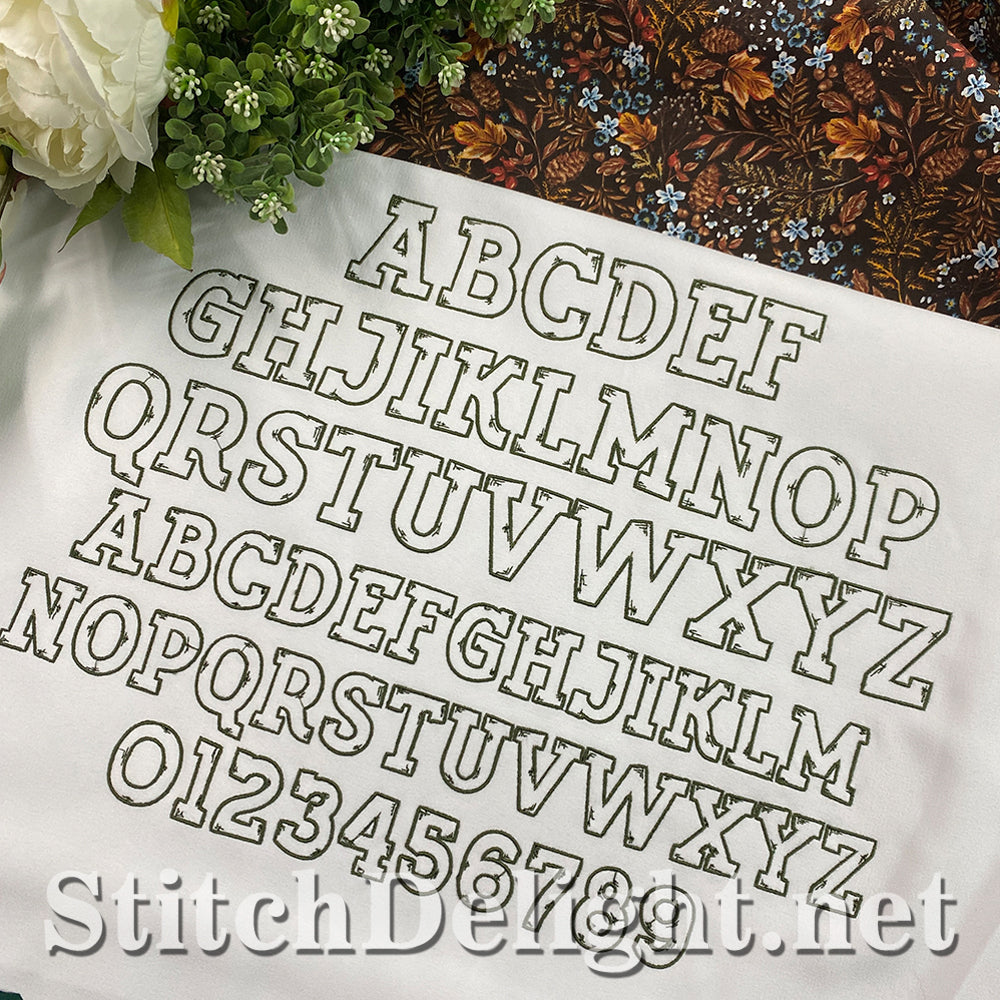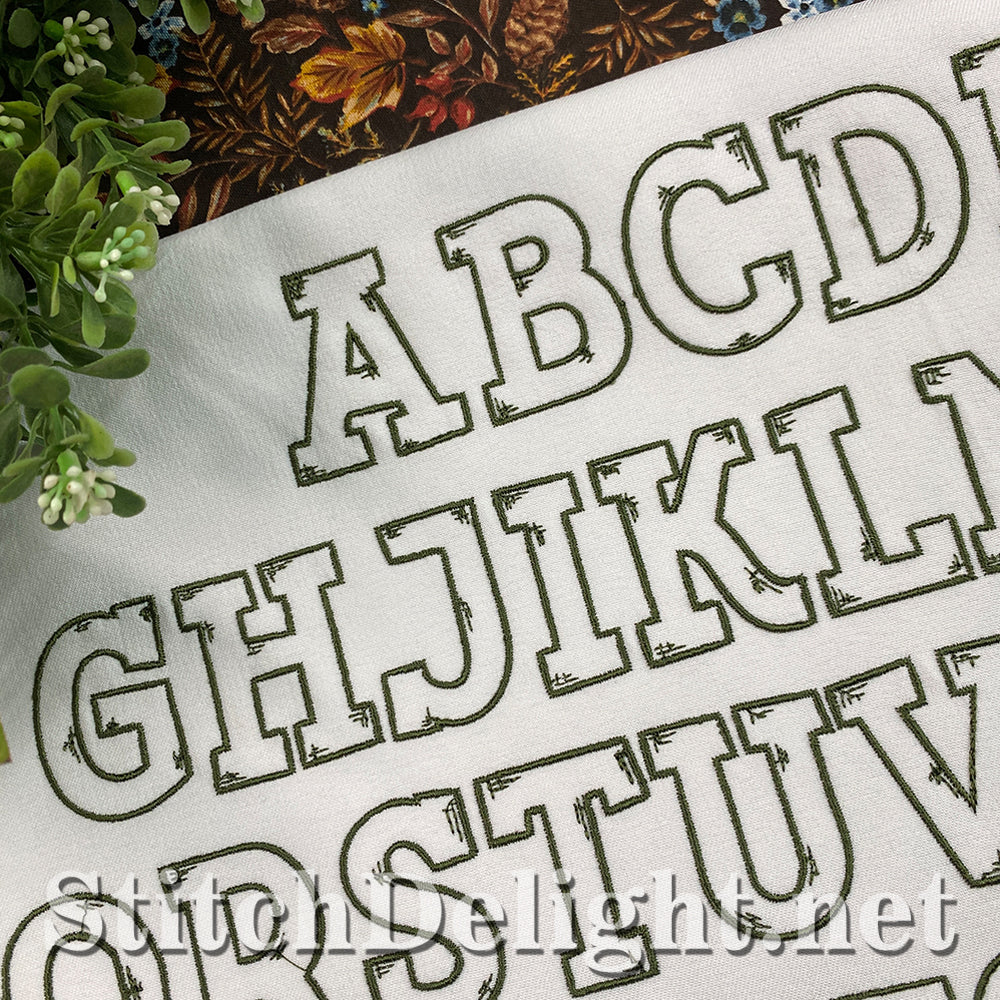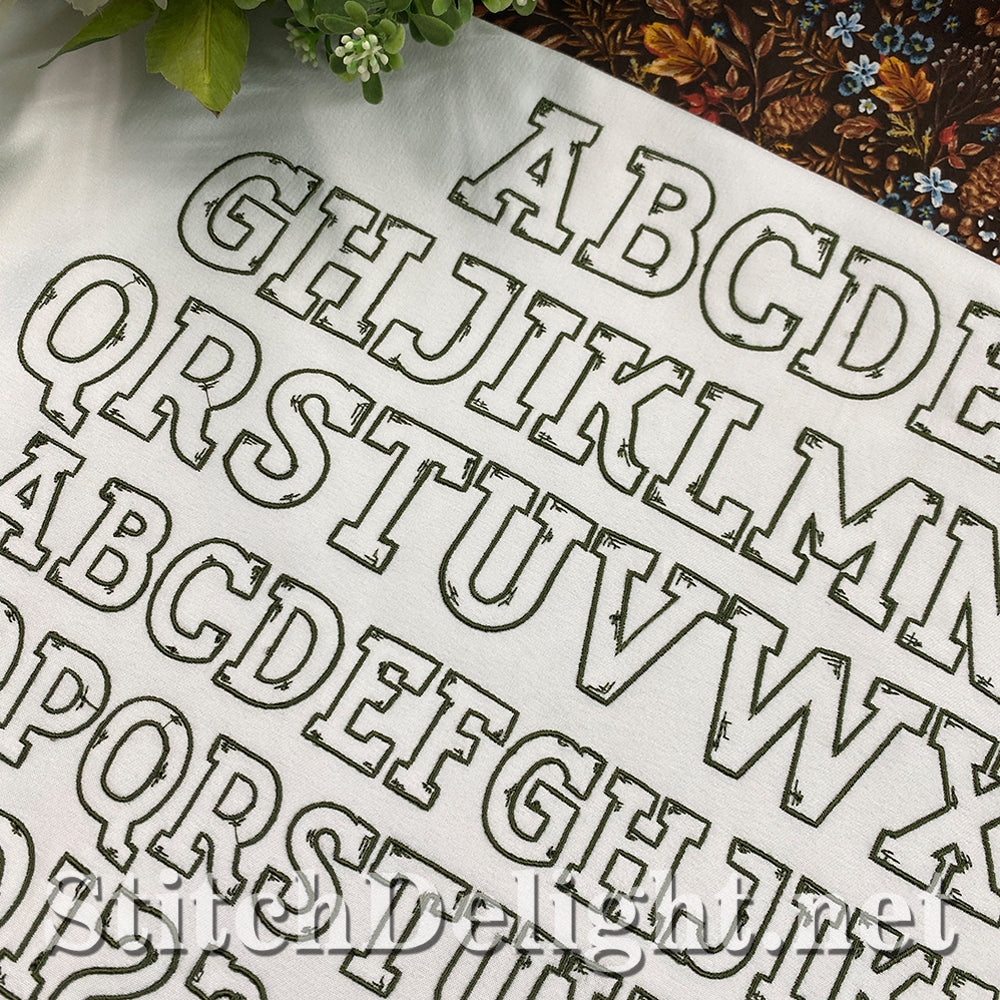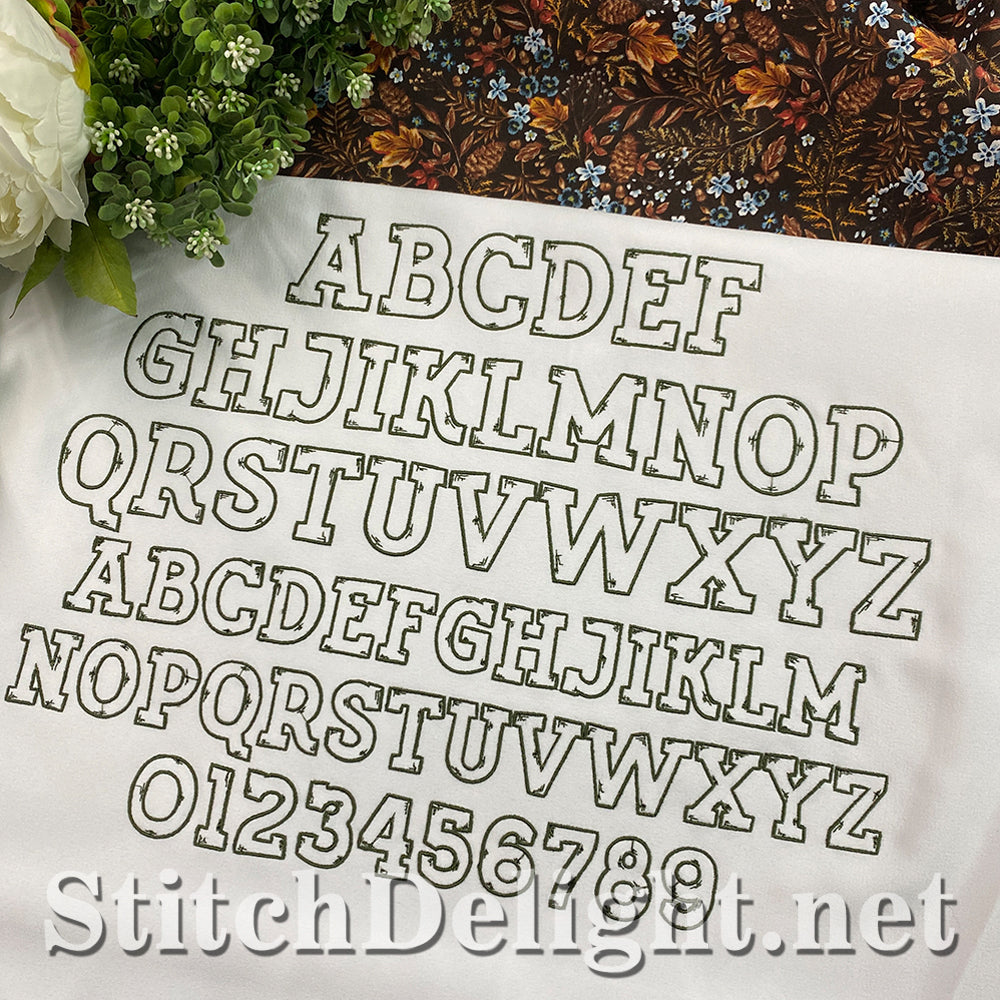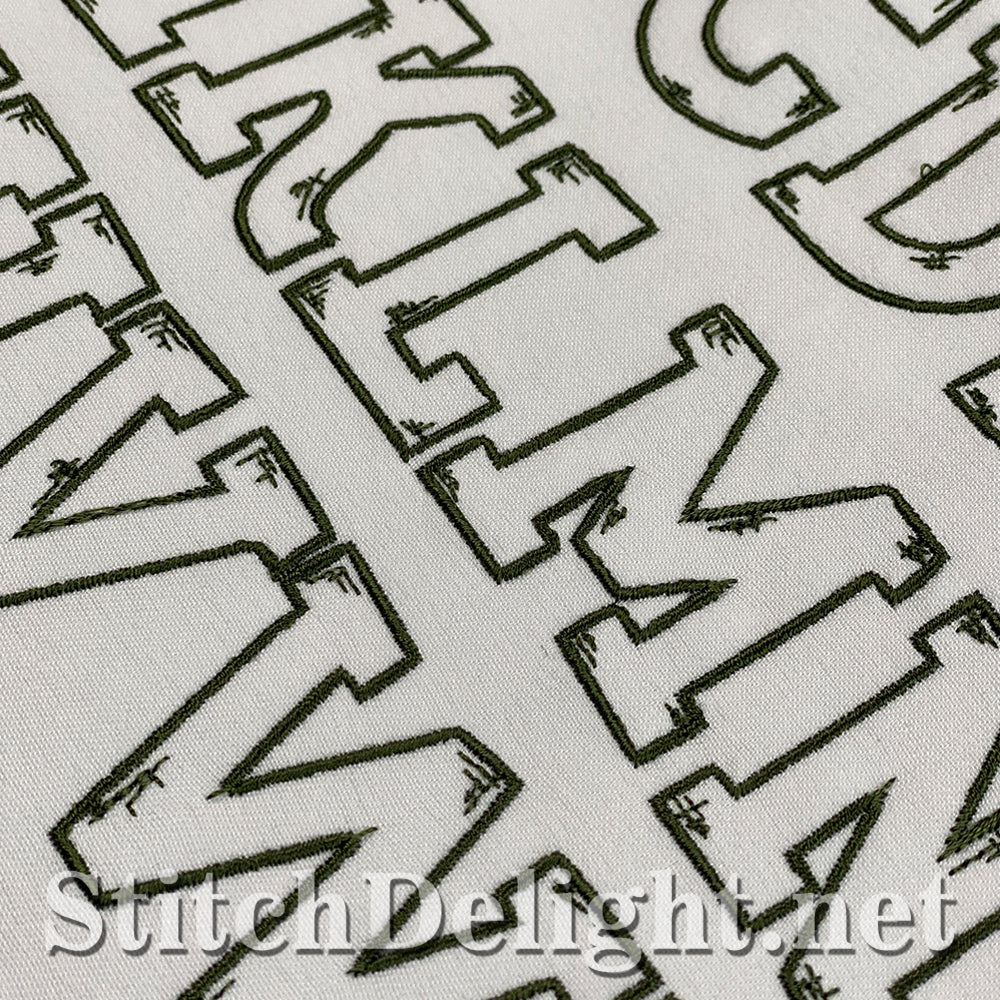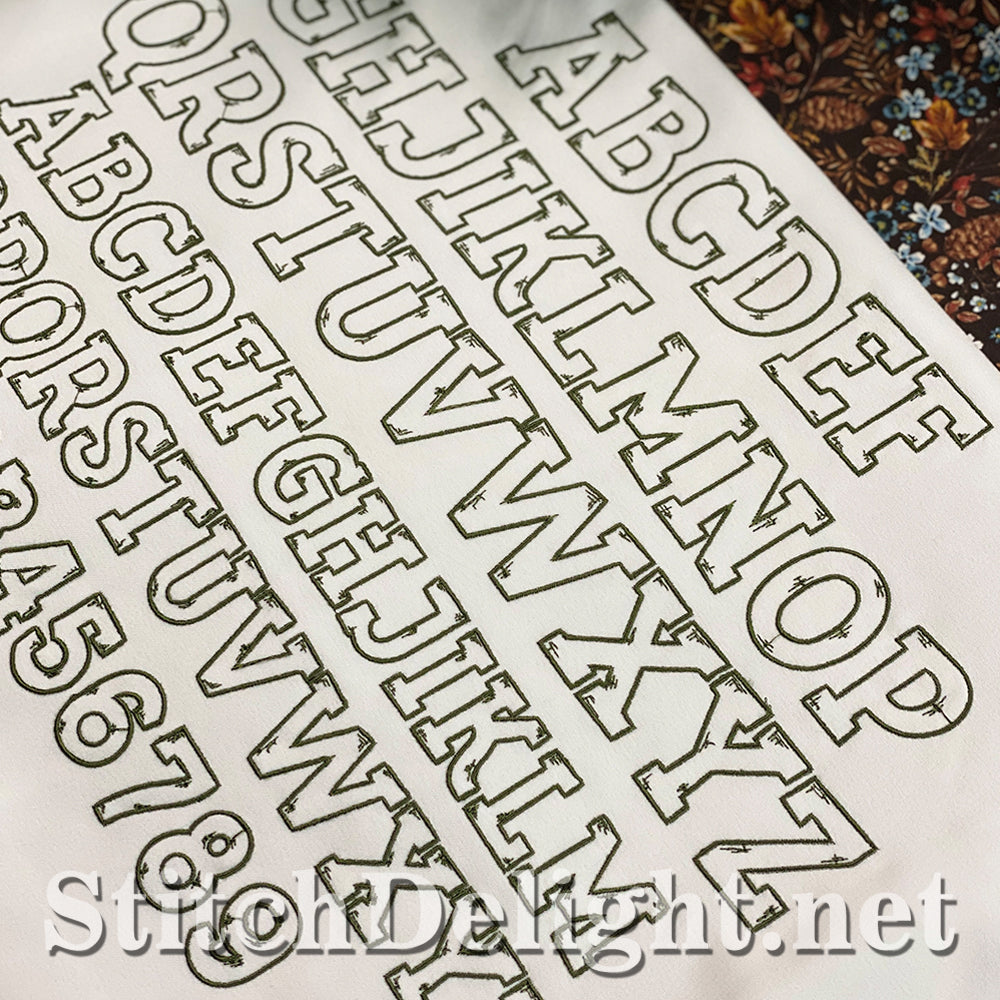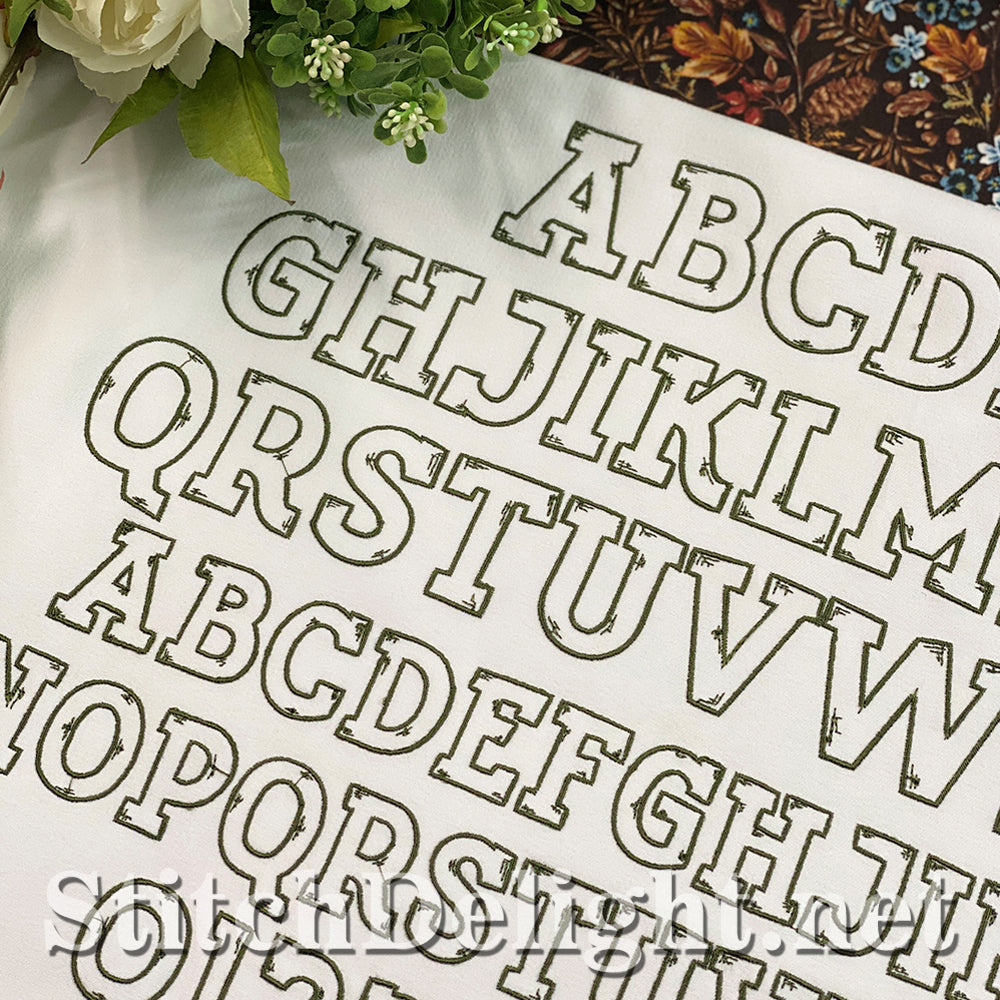
SDS5509 Scratch Font 1.6inch High
This almost wood like font stands 1.6inch high and perfect to use as monograms and stunning on jacket backs or as initials. BX Format included